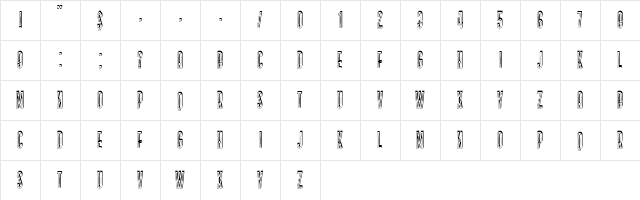
Sabbia Regular
Design Context for Sabbia
Sabbia is a composed and adaptable typeface that performs quietly and consistently across a wide range of design contexts.